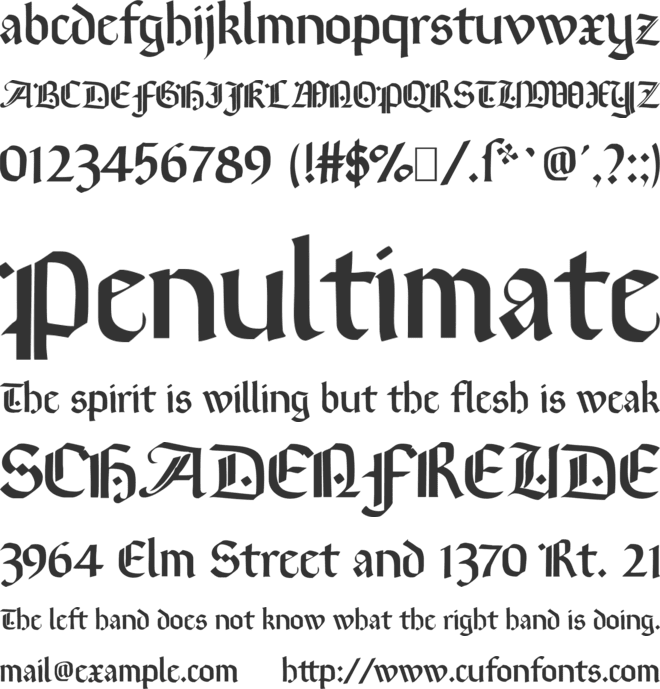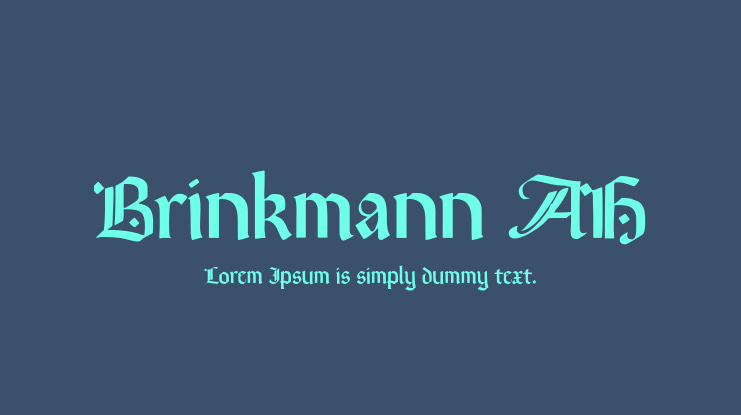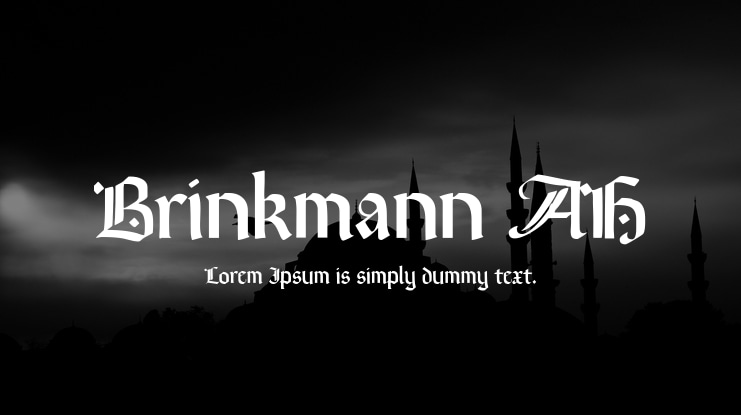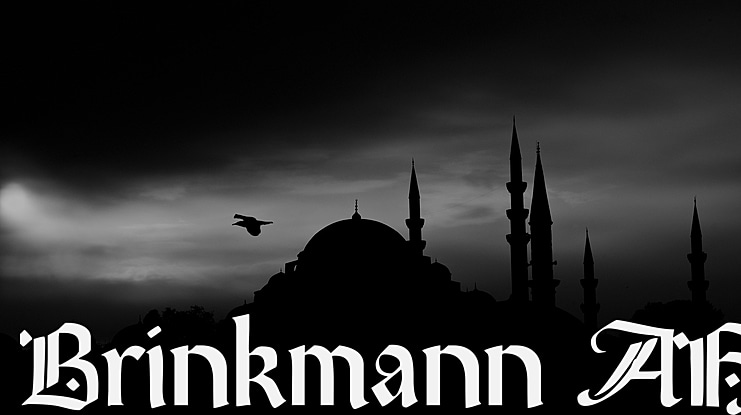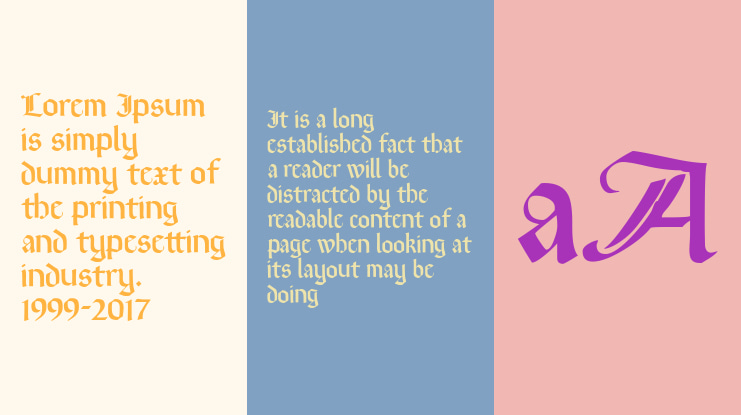
Brinkmann AH Font
A calligraphic display font for certificates, invitations, old-fashioned posters etc. reminiscent of the 15th c. Rotunda style. Looks like hand-written.Named after Wolfgang Brinkmann (1923-1999) of Uelversheim, Germany - calligrapher, signpainter, woodcarver, neighbour. He loved to share a laugh and a bottle of good wine, but died all too soon after we first met. Remember to share your time with people you like. Naming fonts after them is only second best.